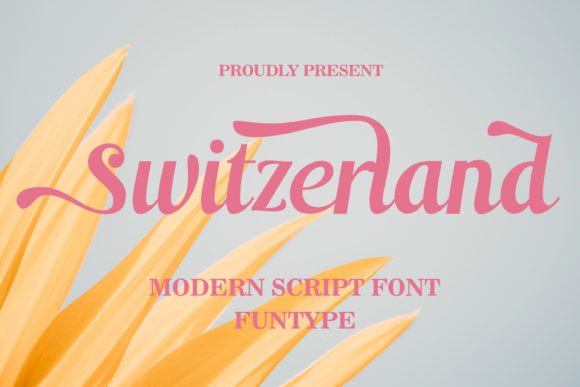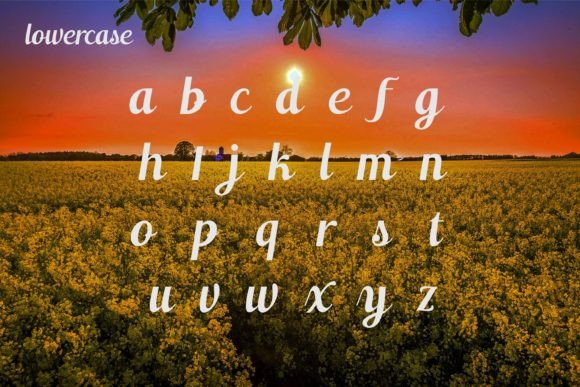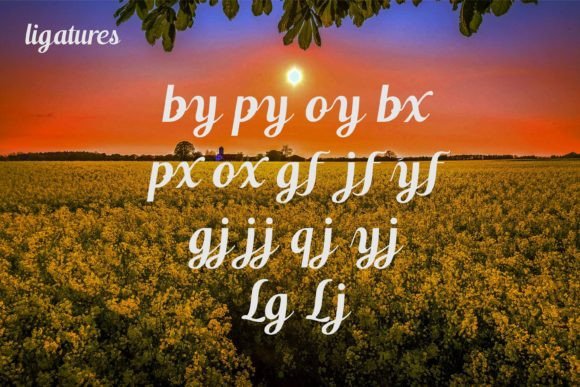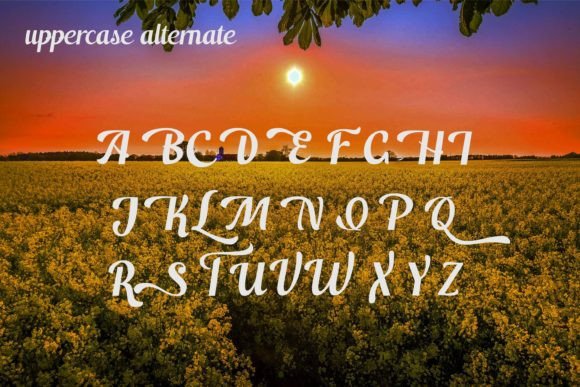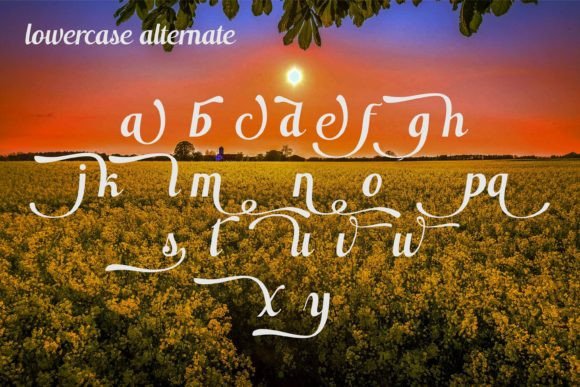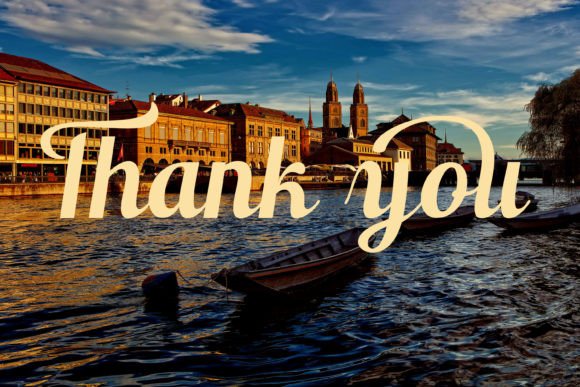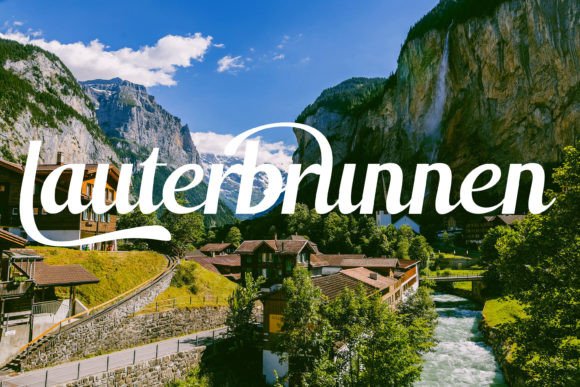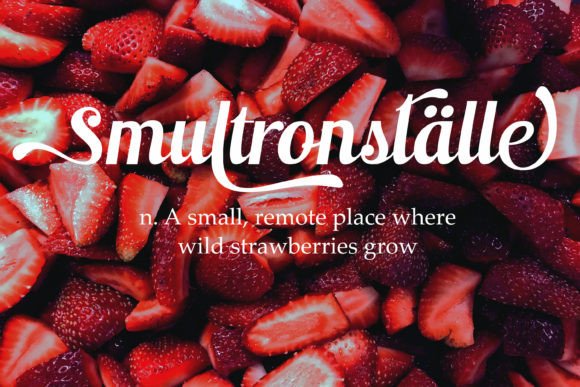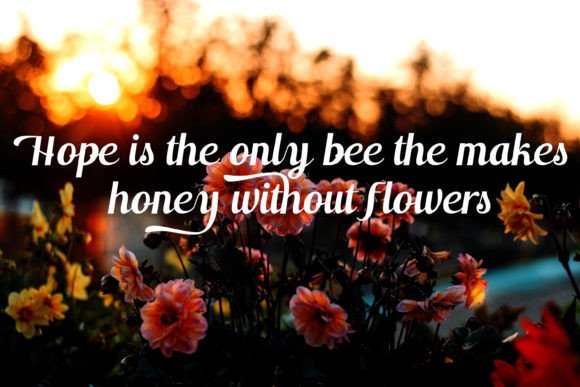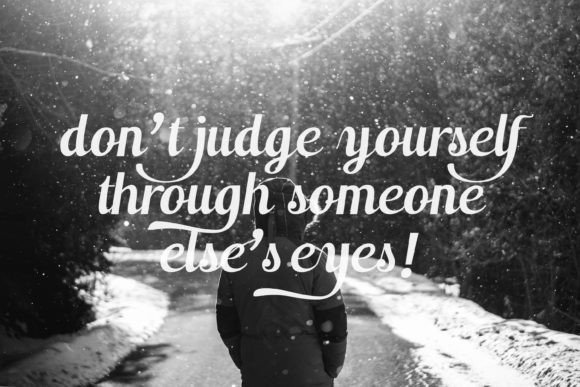
Switzerland Font
About Switzerland Font
Introducing Switzerland, a modern and fun script font that effortlessly blends contemporary style with a playful touch. This versatile script font is designed to enhance a wide spectrum of applications, ranging from greeting cards to headlines. It is guaranteed to add a romantic and engaging feel to your next project.
The modern and fun characteristics of Switzerland make it suitable for various creative contexts. Whether you’re working on greeting cards, eye-catching headlines, or any other design project, this font adapts seamlessly, adding a touch of contemporary flair and playfulness.
Envision Switzerland gracing your designs with its modern and fun script, making them stand out with a stylish and lively charm. Picture it on romantic greeting cards, where it adds a touch of elegance and romance. Whether you’re aiming for a casual or more polished look, Switzerland is ready to bring a modern and playful vibe to your creative endeavors.
In summary, Switzerland is more than just a font; it’s a versatile design tool that brings modernity and fun to your projects. Embrace its contemporary style and playful demeanor confidently, knowing that it can infuse a romantic feel into a variety of design contexts. Let Switzerland be the choice that adds a touch of style and personality to your next project, making it memorable and visually appealing.